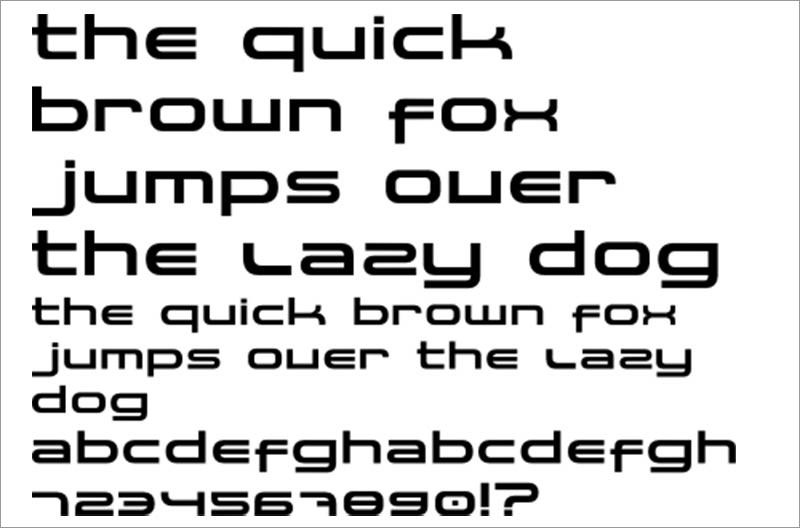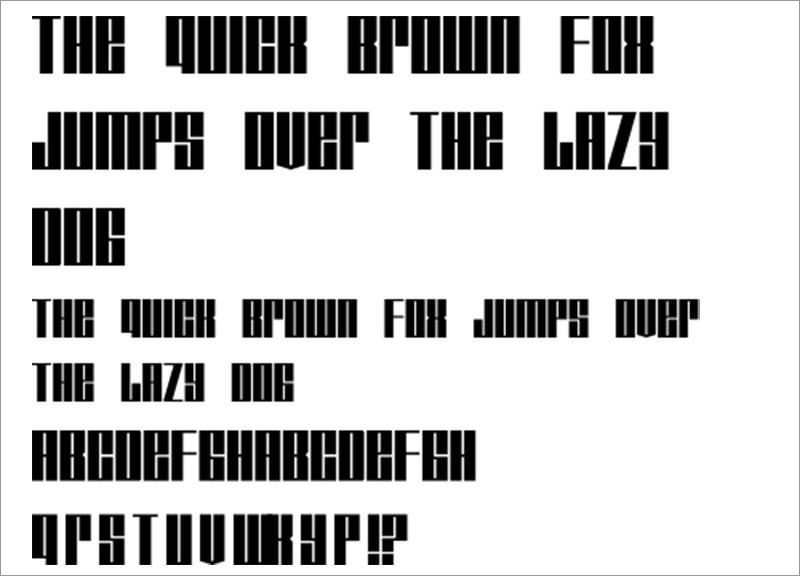
Below is a selection of the finest typefaces from recognizable science fiction shows as well as a number of others that follow the same theme. (Source: hongkiat)
Sci Fi Movies
Check out these famous typefaces from the famous science fiction show,
Robocop
Aliens
Alien Resurrection
Alien vs. Predator
Back to the future
Batman Forever
Battlestar Galactica
Blade Runner
Farscape
Star Trek
Futurama
Wall-E
Matrix
Planet of the Apes
Star Wars
Transformers
Tron
More Sci-Fi Themed Fonts:
Here are a few more fonts that are not from or part of a movie but will still work with a sci-fi theme.
Carbon Block
Ethnocentric
Hyperspace
Imagine
Nasualization
Orion
Pirulen
Planet Kosmos
Prototype